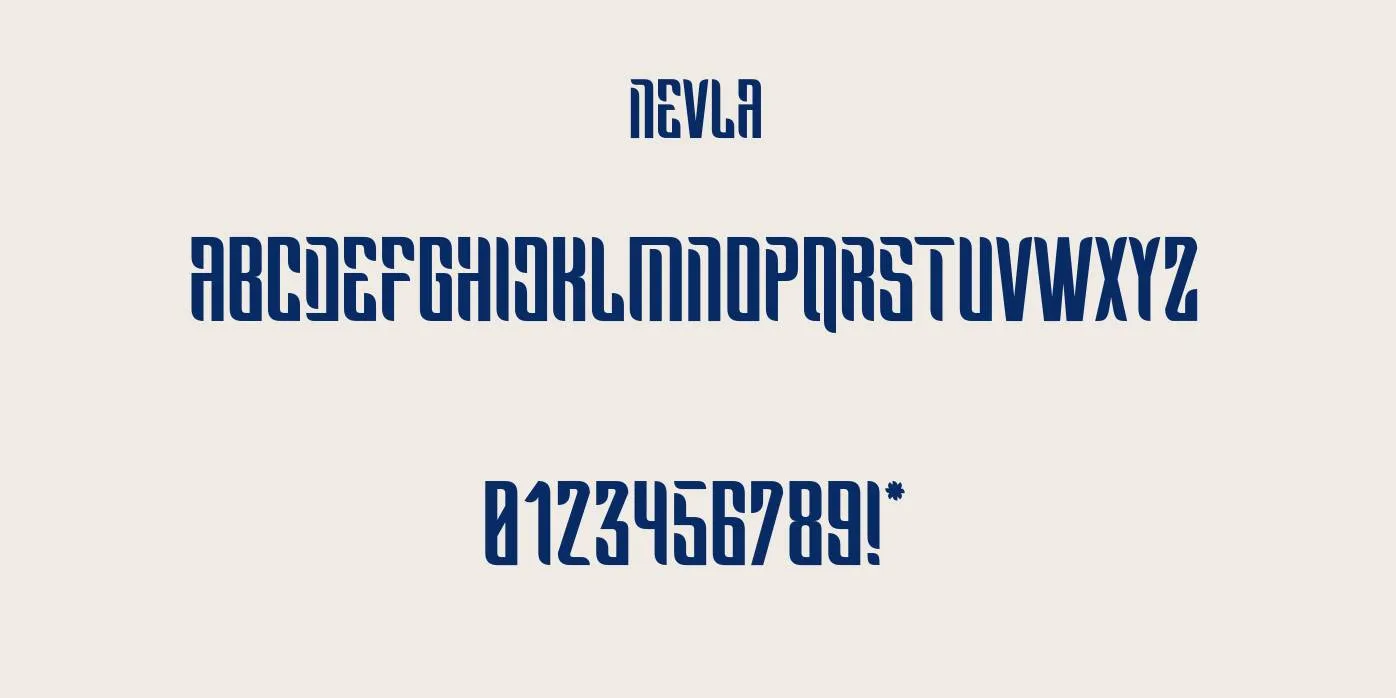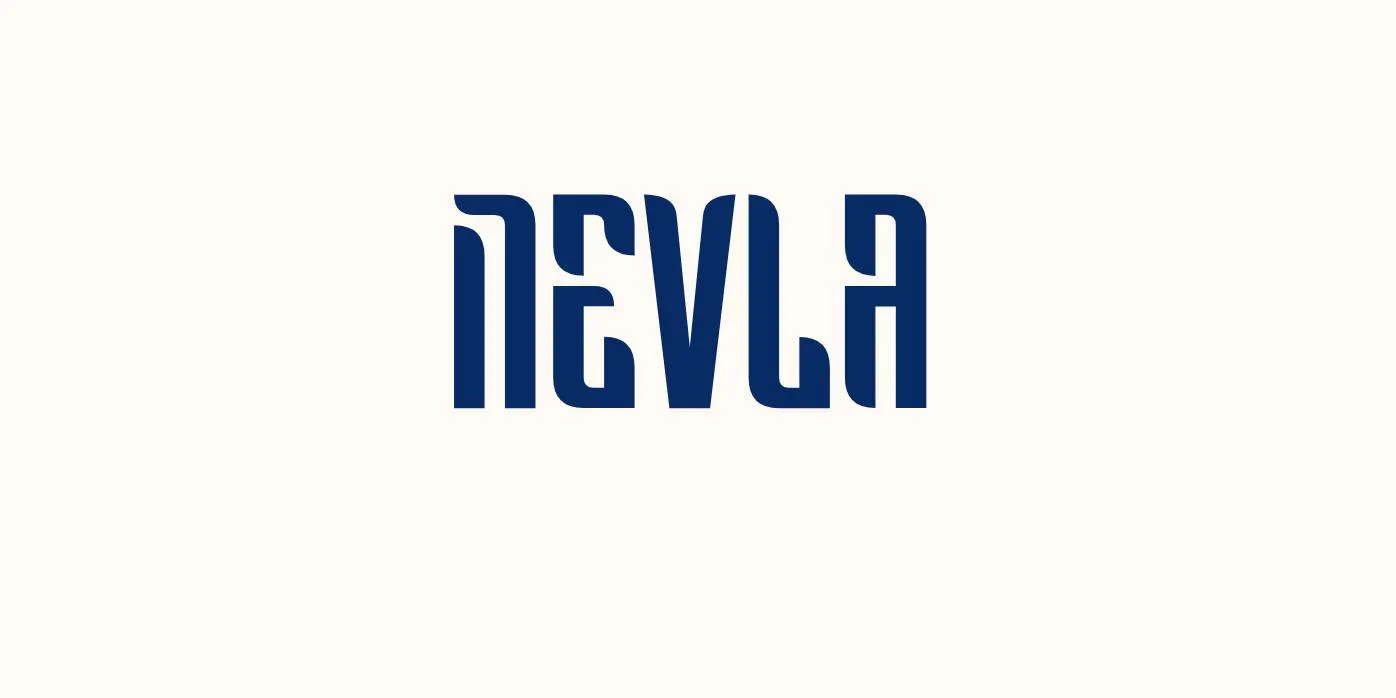
Nevla Font
Kong Font is the designer of this typeface. Nevla Font is a techno type of font. The characters of this texture are stylish, playful, stunning, and highly readable. There are 224 fantastic glyphs for this texture.
The resultant text can be obtained in many types of colors, designs, shapes, and sizes. The typeface that has amazing visual effects with this typeface is the boomhauer font. You can utilize this typeface in a lot of projects and designs. This pair is a flexible one that has a wide range of usage.